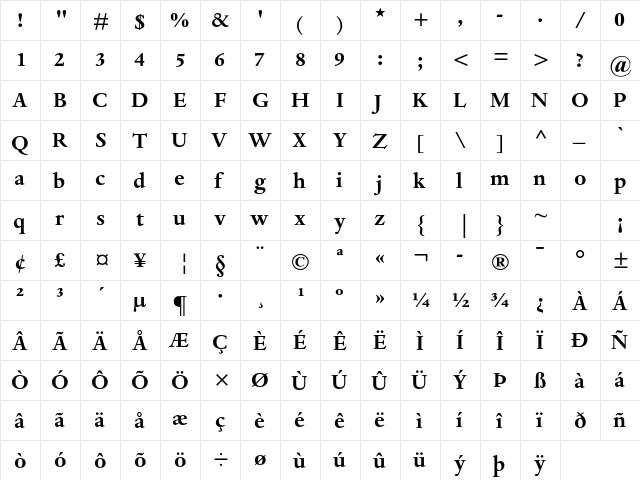
Dante MT Std Bold
| Designer | Giovanni Mardersteig |
Design Context for Dante MT Std Typeface
Dante MT Std is a composed and adaptable typeface that performs quietly and consistently across a wide range of design contexts. The heavy weight commands attention and anchors typographic hierarchies.